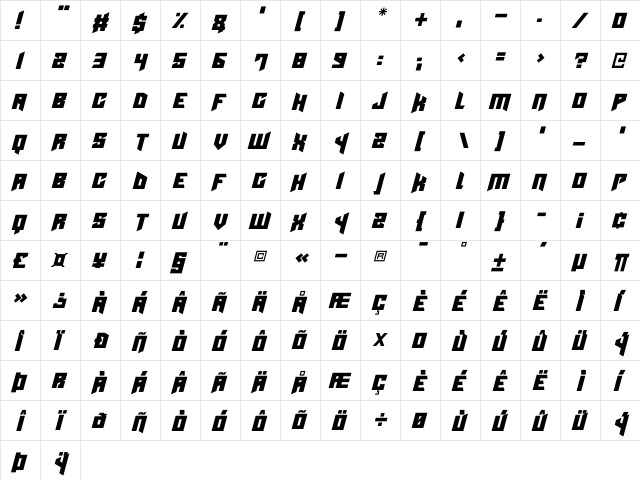
Cyberpunks Italic
Design Context for Cyberpunks Typeface
Cyberpunks has a distinctly futuristic character, with geometric precision and clean angles that feel at home in technology, gaming, and sci-fi contexts. The slanted form adds forward momentum and visual energy.